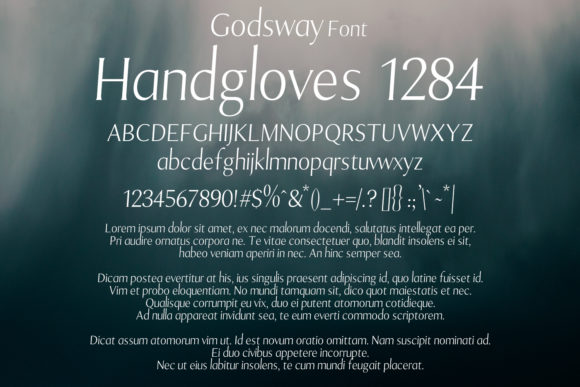
Introducing Godsway Font: Elevate Your Designs with Elegance and Sophistication
Are you on the hunt for a font that exudes elegance, sophistication, and versatility? Look no further than Godsway Font, a thin and neat serif font designed to elevate your creative projects to new heights. With its sleek lines, precise craftsmanship, and classic charm, Godsway is the perfect addition to any designer’s toolkit.
What Makes Godsway Font Stand Out?
Godsway Font is a masterclass in typographic design, boasting a unique blend of refinement and legibility. Its thin and neat serif construction makes it an ideal choice for a wide range of projects, from elegant branding and editorials to sophisticated packaging and digital interfaces. Whether you’re a seasoned designer or a crafty DIY enthusiast, Godsway Font is sure to make your creations stand out from the crowd.
Key Features of Godsway Font
- Thin and Neat Serif Construction: Godsway Font features a slender, refined design that adds a touch of sophistication to any project.
- High Legibility: The font’s carefully crafted letterforms ensure excellent readability, even at small sizes.
- Versatile: Godsway Font can be used in a wide range of applications, from print and digital media to branding and packaging.
- Elegant and Sophisticated: The font’s classic charm and refined aesthetic make it perfect for designs that require a touch of luxury and elegance.
How to Use Godsway Font in Your Designs
Godsway Font is incredibly easy to use and can be applied to a variety of design projects. Here are a few ideas to get you started:
- Branding and Logos: Use Godsway Font to create elegant and sophisticated brand identities that exude refinement and luxury.
- Editorials and Magazines: Add a touch of class to your editorial designs with Godsway Font’s precise craftsmanship and classic charm.
- Packaging: Elevate your packaging designs with Godsway Font’s sleek lines and refined aesthetic.
- Digital Interfaces: Use Godsway Font to create sophisticated and user-friendly digital interfaces that showcase your brand’s personality.
Tips for Pairing Godsway Font with Other Fonts
While Godsway Font is stunning on its own, it can also be paired with other fonts to create visually striking combinations. Here are a few tips for pairing Godsway Font with other fonts:
- Contrast with Bold Fonts: Pair Godsway Font with bold, sans-serif fonts to create a striking contrast that adds visual interest to your design.
- Match with Script Fonts: Combine Godsway Font with elegant script fonts to create a sophisticated and refined aesthetic.
- Experiment with Serif Fonts: Try pairing Godsway Font with other serif fonts to create a harmonious and elegant design.
In conclusion, Godsway Font is a versatile and elegant serif font that can elevate any design project to new heights. With its thin and neat construction, high legibility, and classic charm, Godsway Font is the perfect addition to any designer’s toolkit. Whether you’re a seasoned designer or a crafty DIY enthusiast, Godsway Font is sure to make your creations stand out from the crowd. So why wait? Add Godsway Font to your creative arsenal today and discover a world of design possibilities!